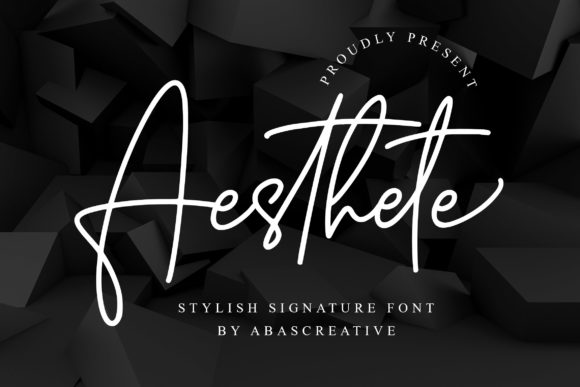
The Elegance of Aesthete Font: A Designer’s Delight
I still remember the time I was working on a wedding invitation project, and my client asked for a font that exuded elegance and sophistication. I scoured the internet, tried out countless fonts, but nothing seemed to fit the bill. That was until I stumbled upon Aesthete Font. ✨ It was love at first sight! The flowing script, the intricate details, and the sheer elegance of it all left me speechless. In this article, I’ll share my experience with Aesthete Font, its features, and how to make the most of it in your designs.
An Honest Review of Aesthete Font
• ✨ Elegant and sophisticated design, perfect for high-end projects
• ✅ Highly versatile, suitable for various design applications, including wedding invitations, thank you cards, quotes, and more
• 💫 Beautifully crafted, with intricate details that add a touch of luxury to any design
• 👍 Excellent for adding a handwritten touch to logos, business cards, and other marketing materials
While Aesthete Font is an exceptional font, there are a few things to keep in mind: 🤔
• ⚠️ It may not be the best choice for body text, as it’s a script font and can be challenging to read in large blocks
• ⚠️ Some users may find the font a bit too ornate for certain projects, such as minimalist designs
The Backstory of Aesthete Font
Aesthete Font was crafted with love and care by a talented type designer who aimed to create a font that would evoke the elegance and sophistication of handwritten calligraphy. 💫 The designer’s inspiration came from the world of luxury stationery, fine art, and high-end fashion. The result is a font that exudes refinement and poise, perfect for designers who want to add a touch of luxury to their projects.
Author AbasCreative
Q: What is Aesthete Font best used for?
A: Aesthete Font is ideal for designs that require a touch of elegance and sophistication, such as wedding invitations, thank you cards, quotes, and more.
Q: Is Aesthete Font difficult to read?
A: As a script font, Aesthete Font can be challenging to read in large blocks. However, it’s perfect for short texts, such as headings, titles, and captions.